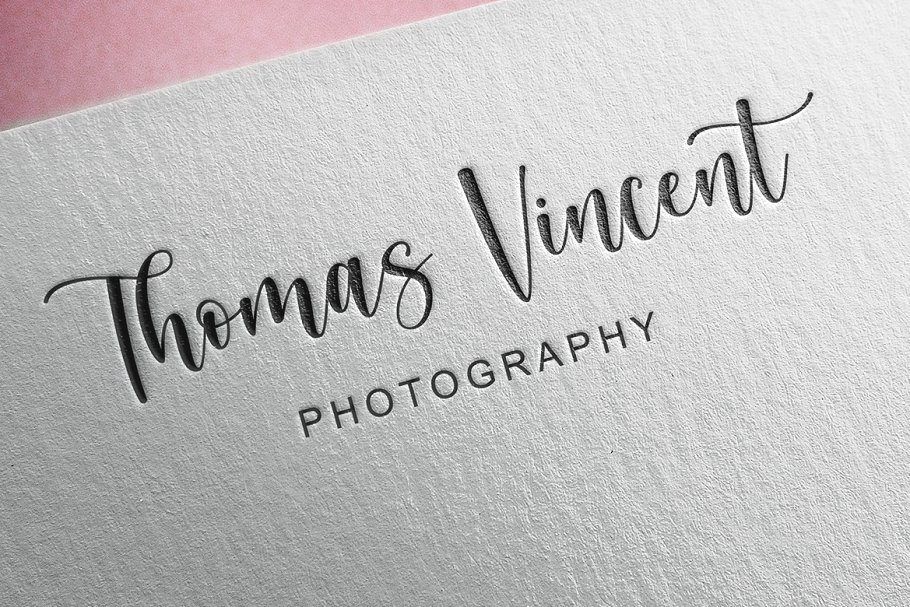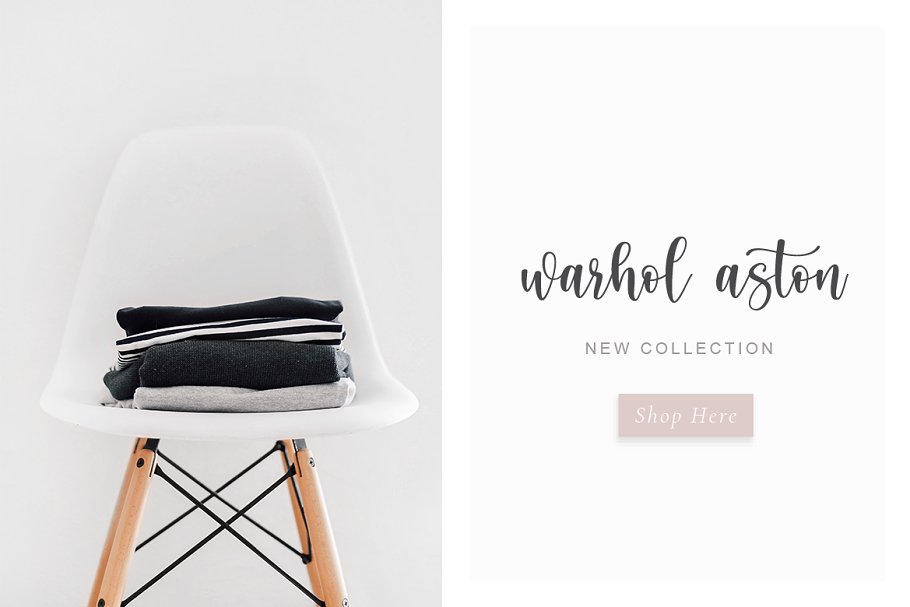
About the Cream Candy Modern Script Font
CHAPTER 02Cream Candy is a beautiful modern script font with beginning and ending swashes, 22 ligatures that add more beautiful and aesthetic fonts to perfect your extraordinary project, Please send a message if you have questions, and don’t hesitate to say hello on Instagram www, instagram, com/luthfi_ef/Thank you !